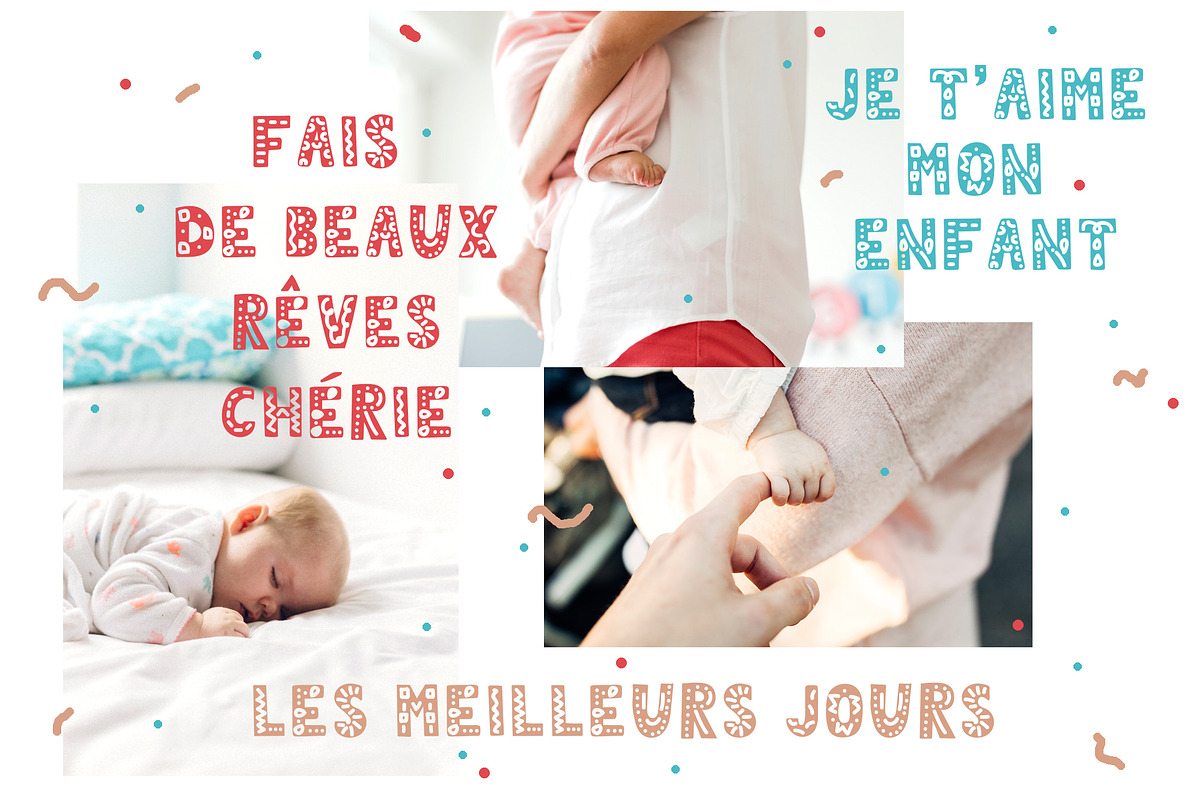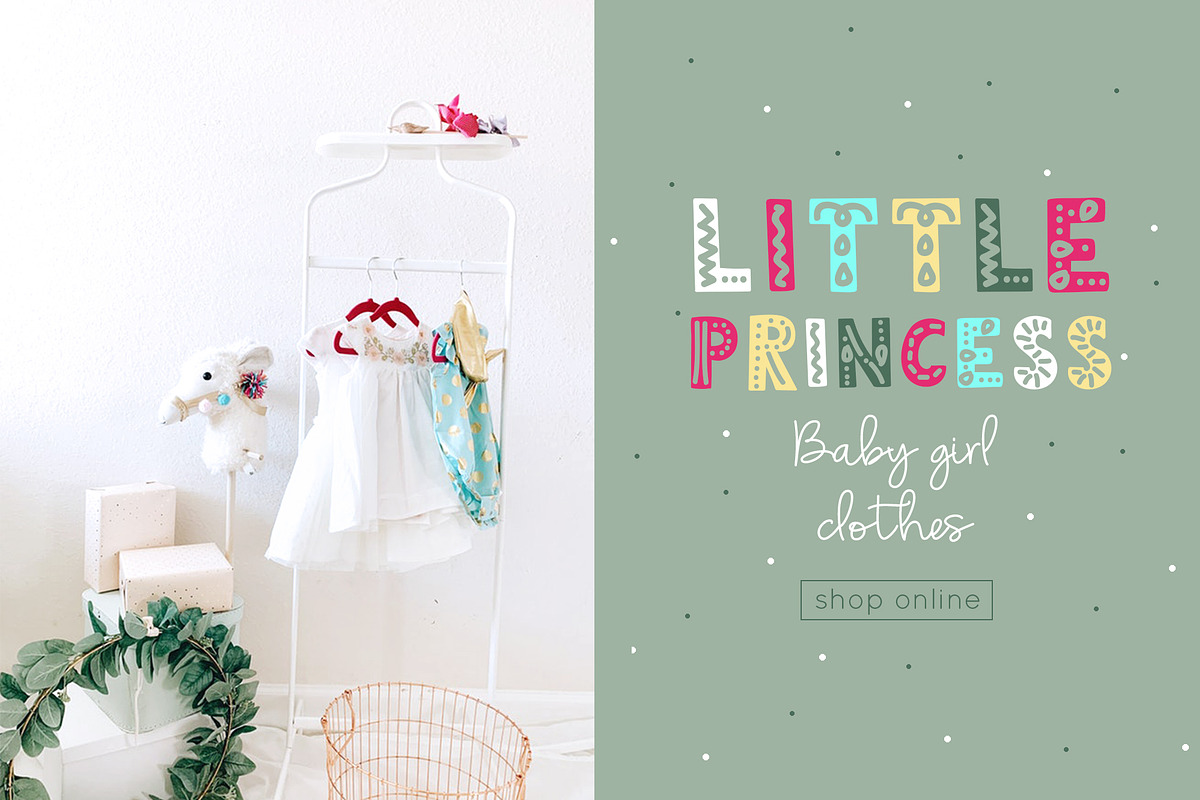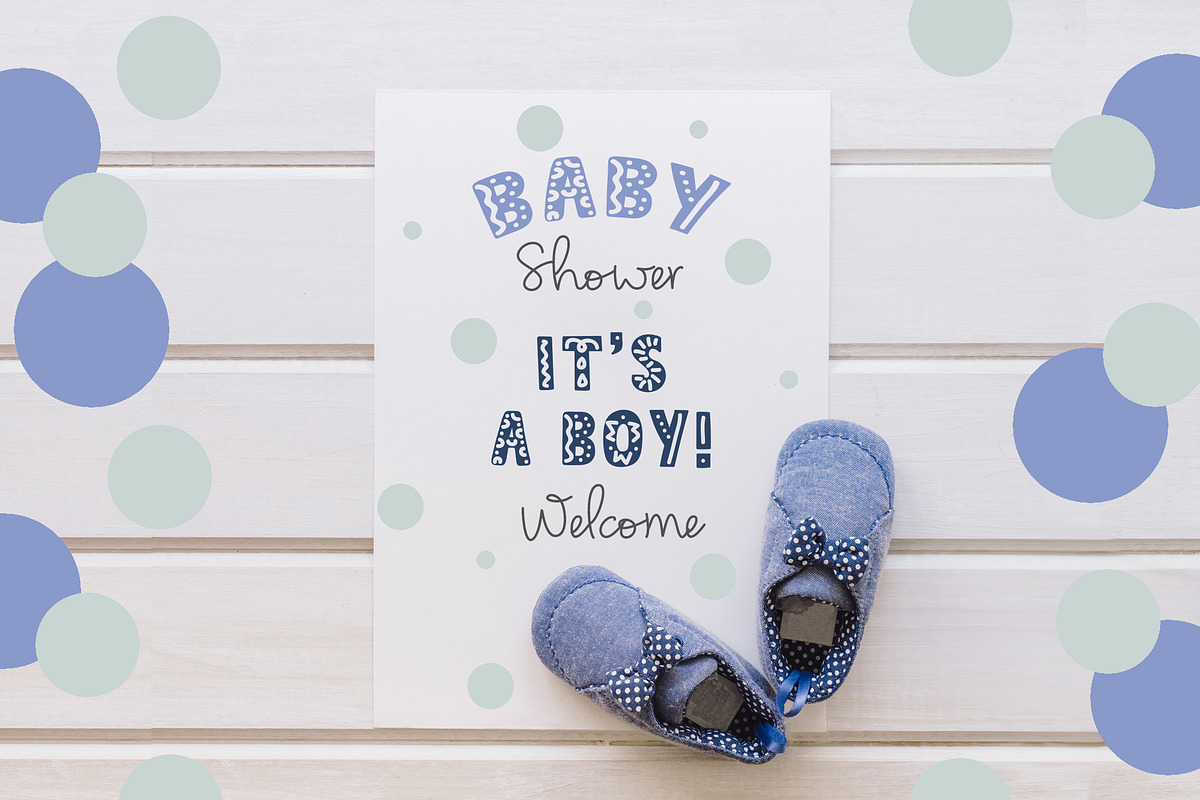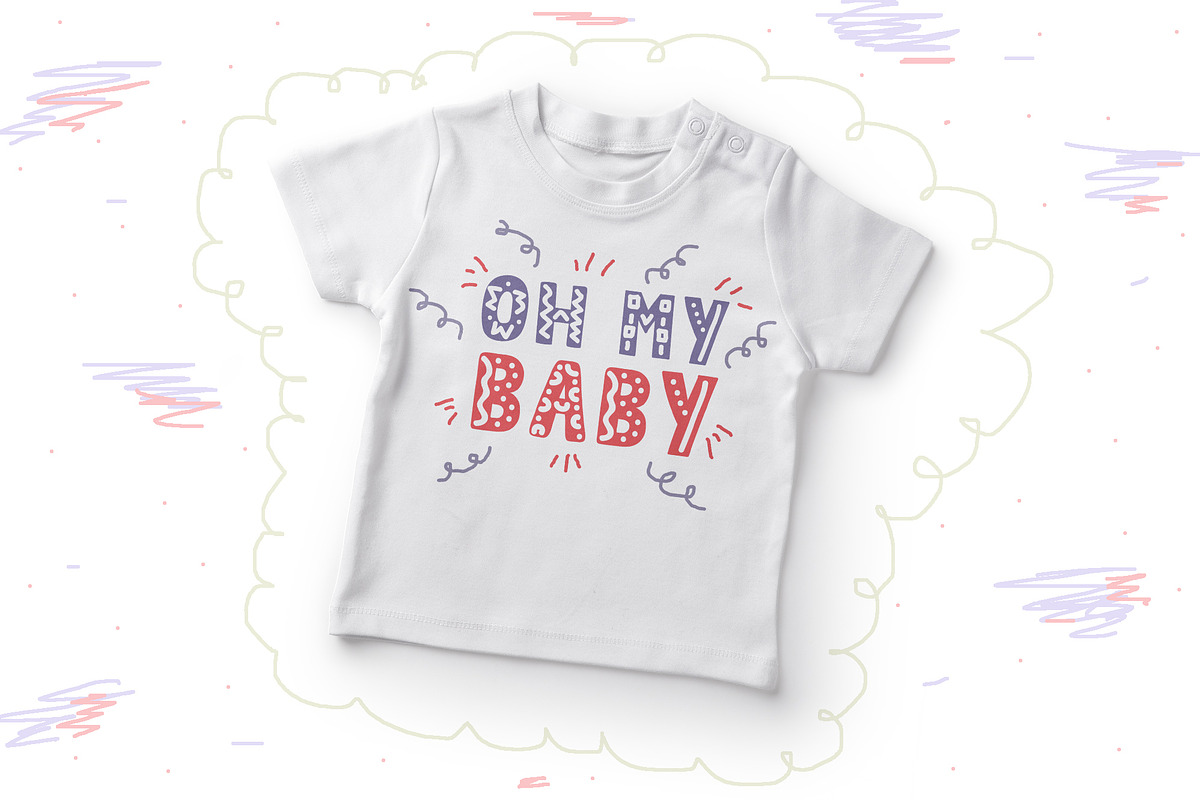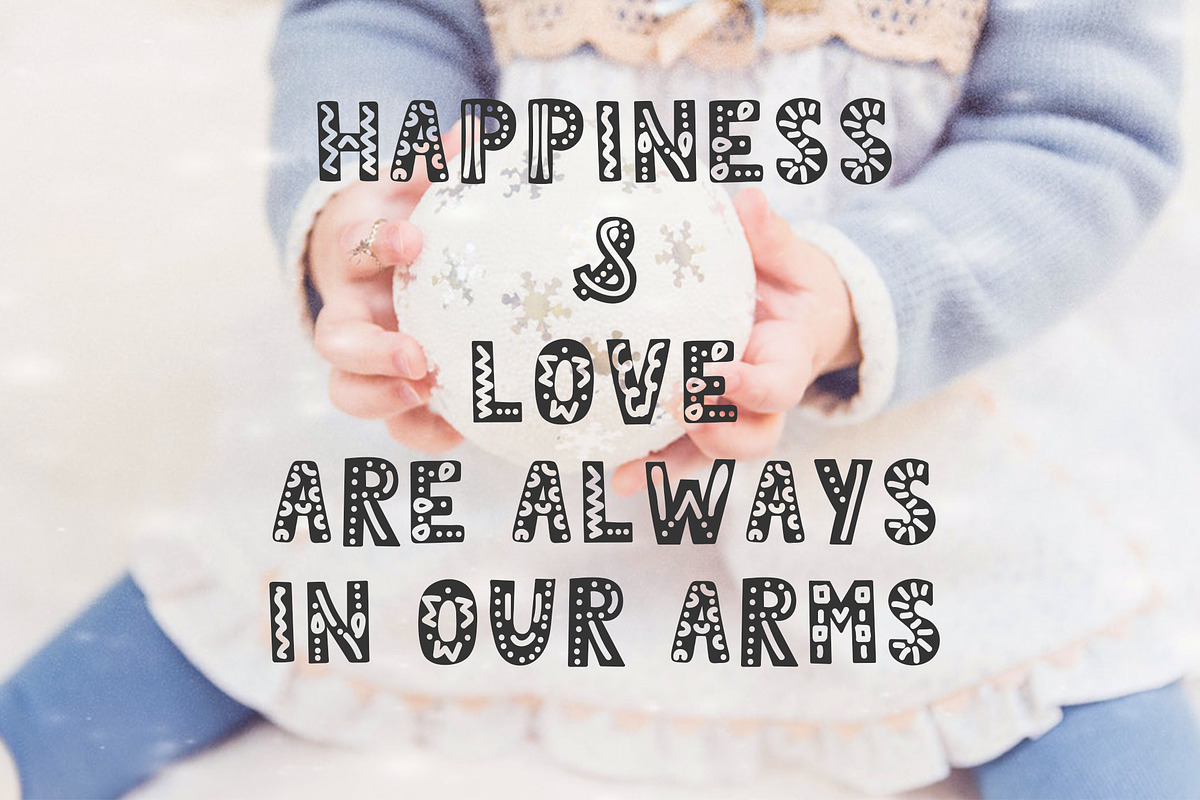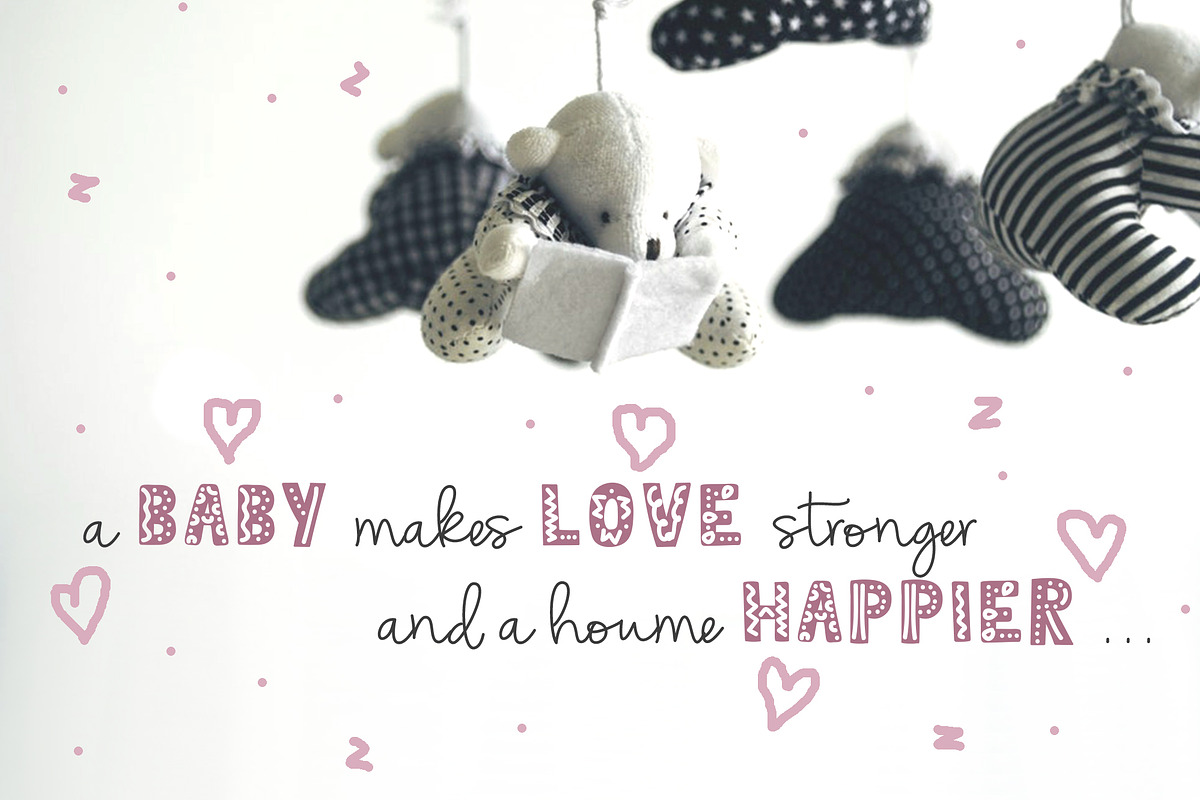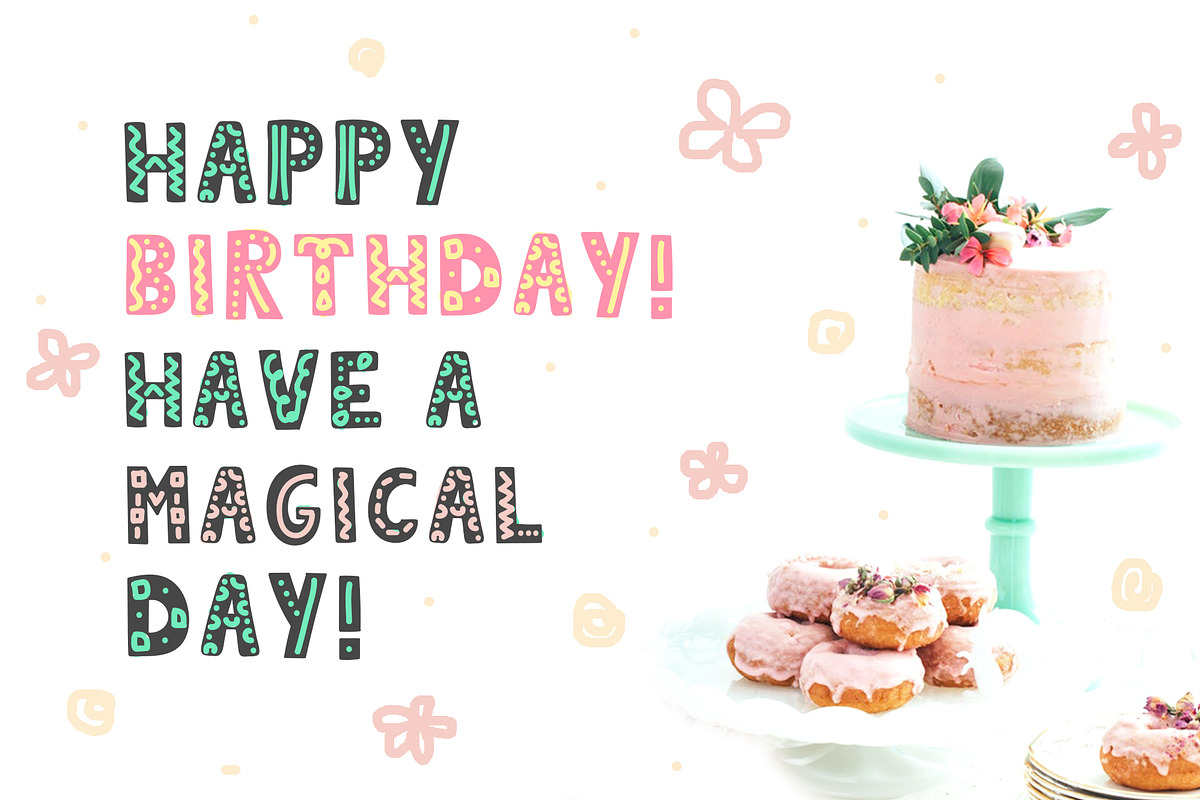
Oh My Child Font. Hygge Style
This kids typeface is perfect for scandinavian or childish projects.
OH MY CHILD font has a great advantage - Bonus with 18 vector high quality illustrations of playing kids. It will help you to create special and touching typographical design for every day or the happiest day in life, summer vacations, baby shower, happy birthday card. It is really universal and modern font. The owner of endless possibilities!
It is perfect for multiple contexts. Works great in posters, logos, headlines, packaging, advertising, branding and so much more. Just create the best design and make your projects cosy, funny, trully hand-painted realistic and natural.
OH MY CHILD font has uppercase letters, numbers & basic punctuation, multiligual support (French, German, Italian, Norwegian, Portuguese, Spanish, Swedish, Swiss German).